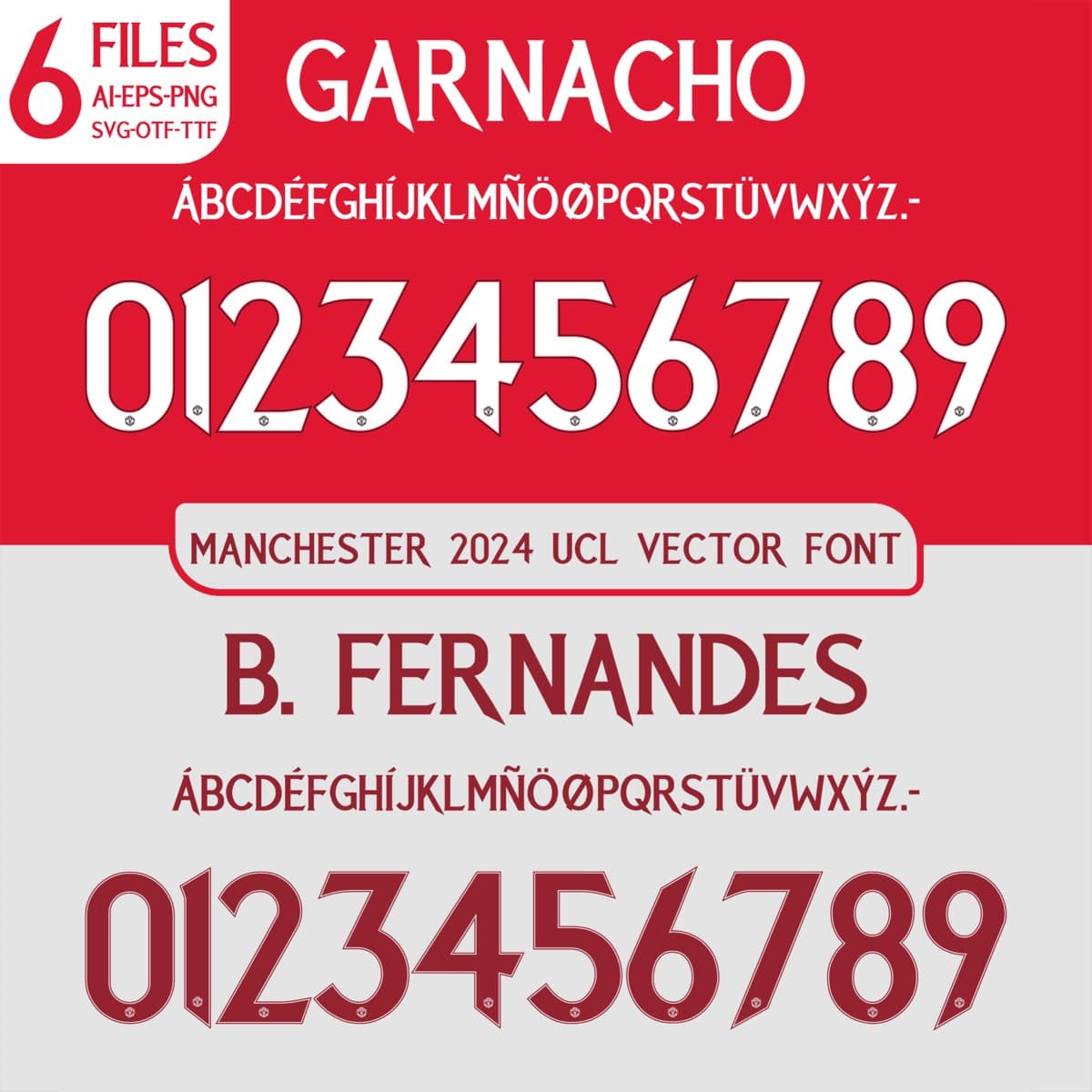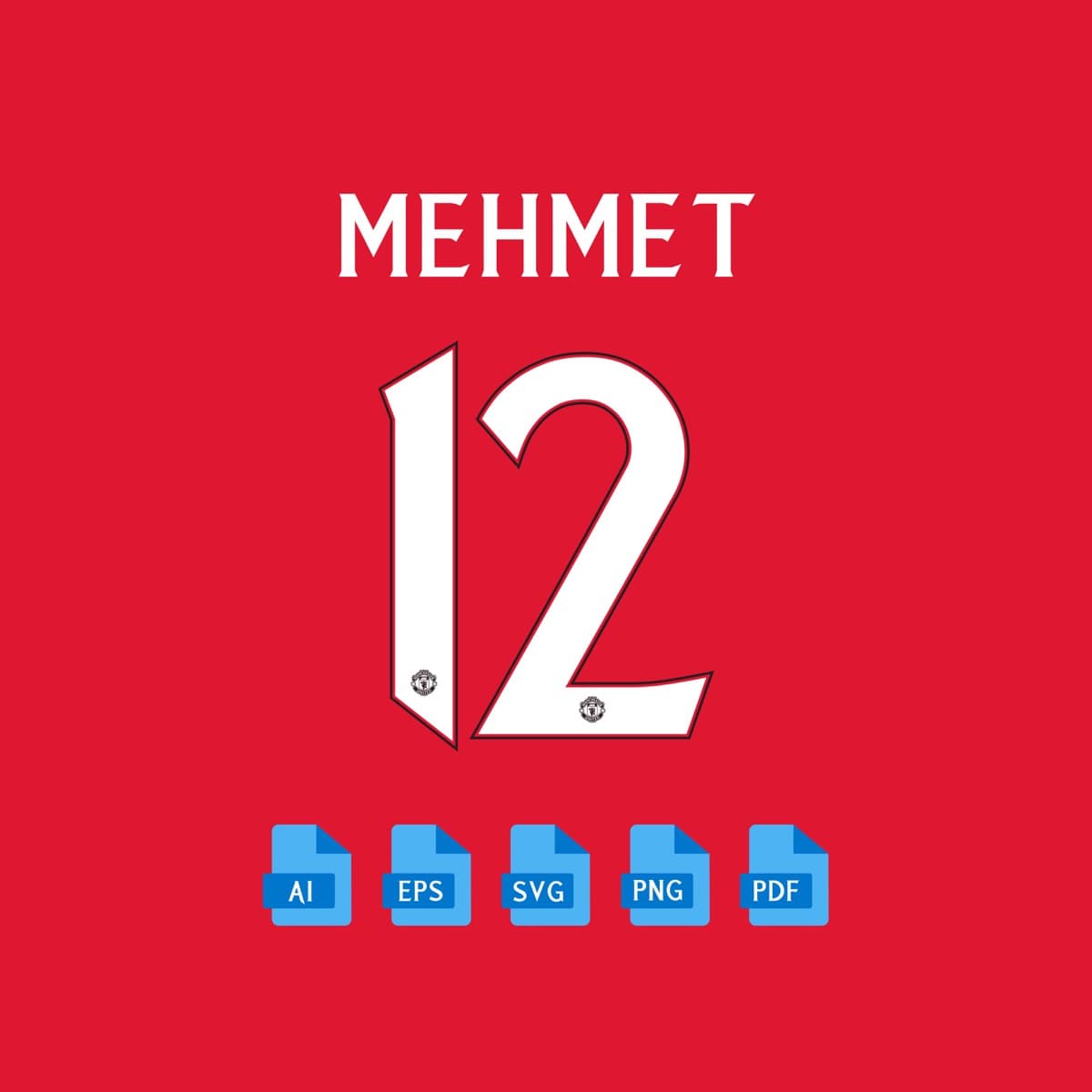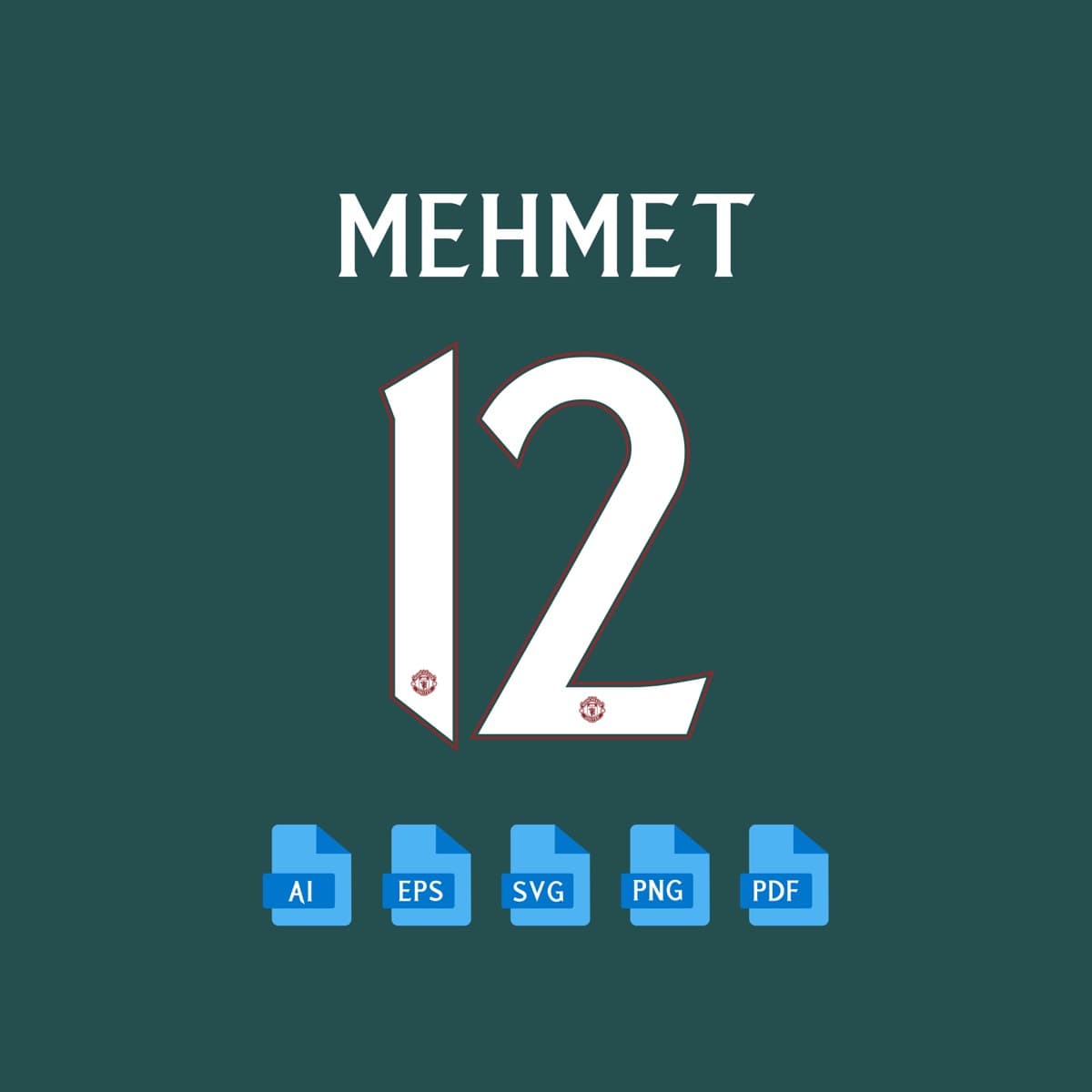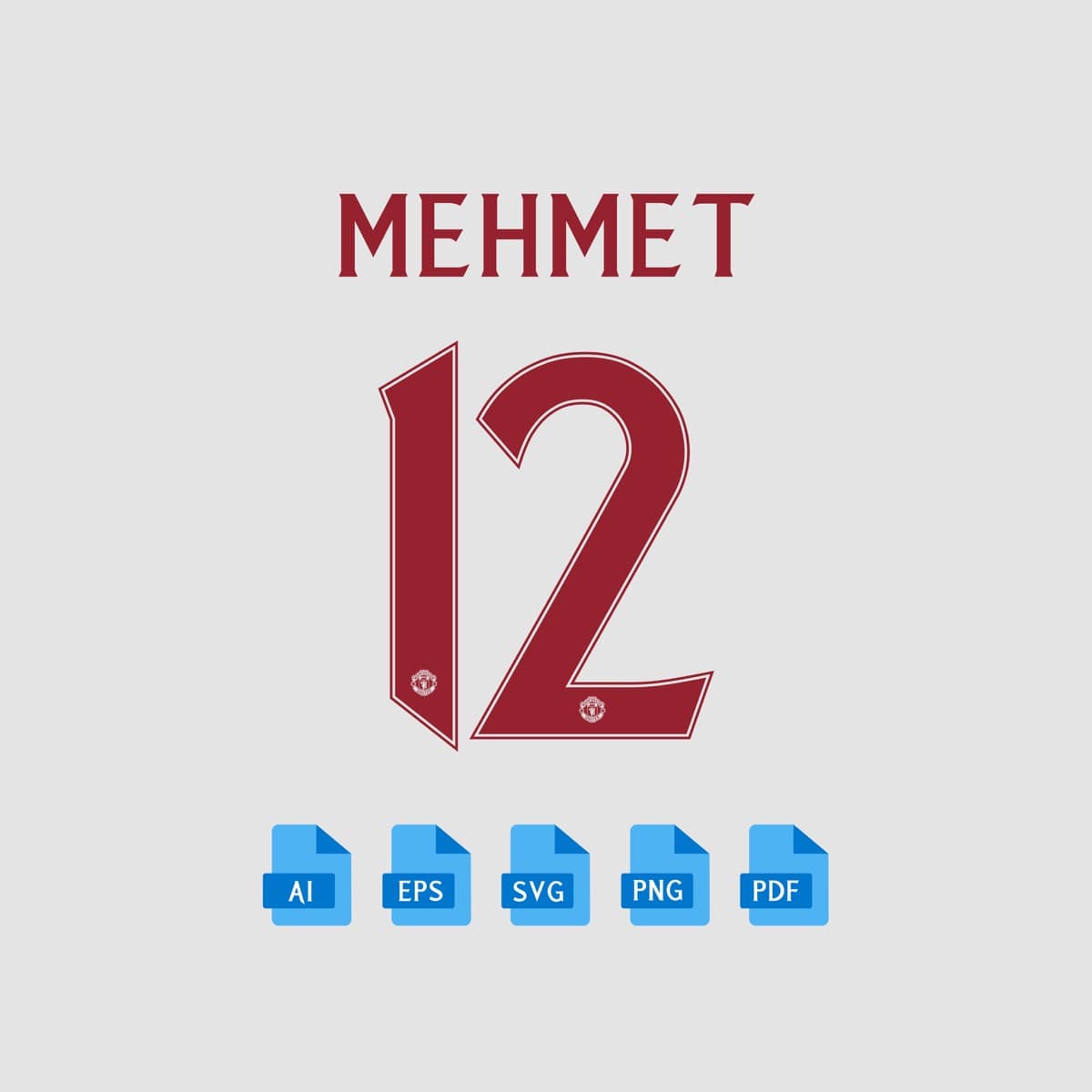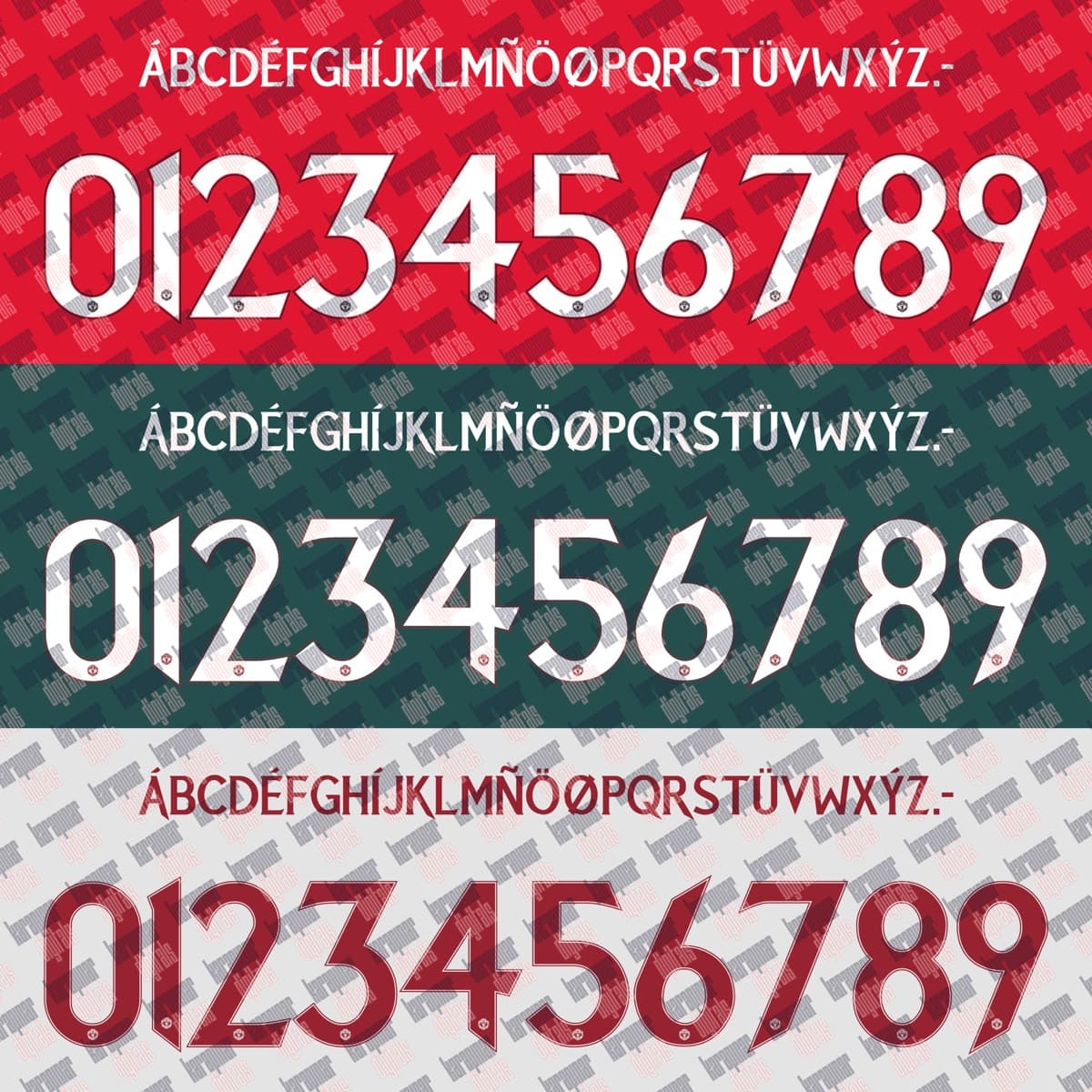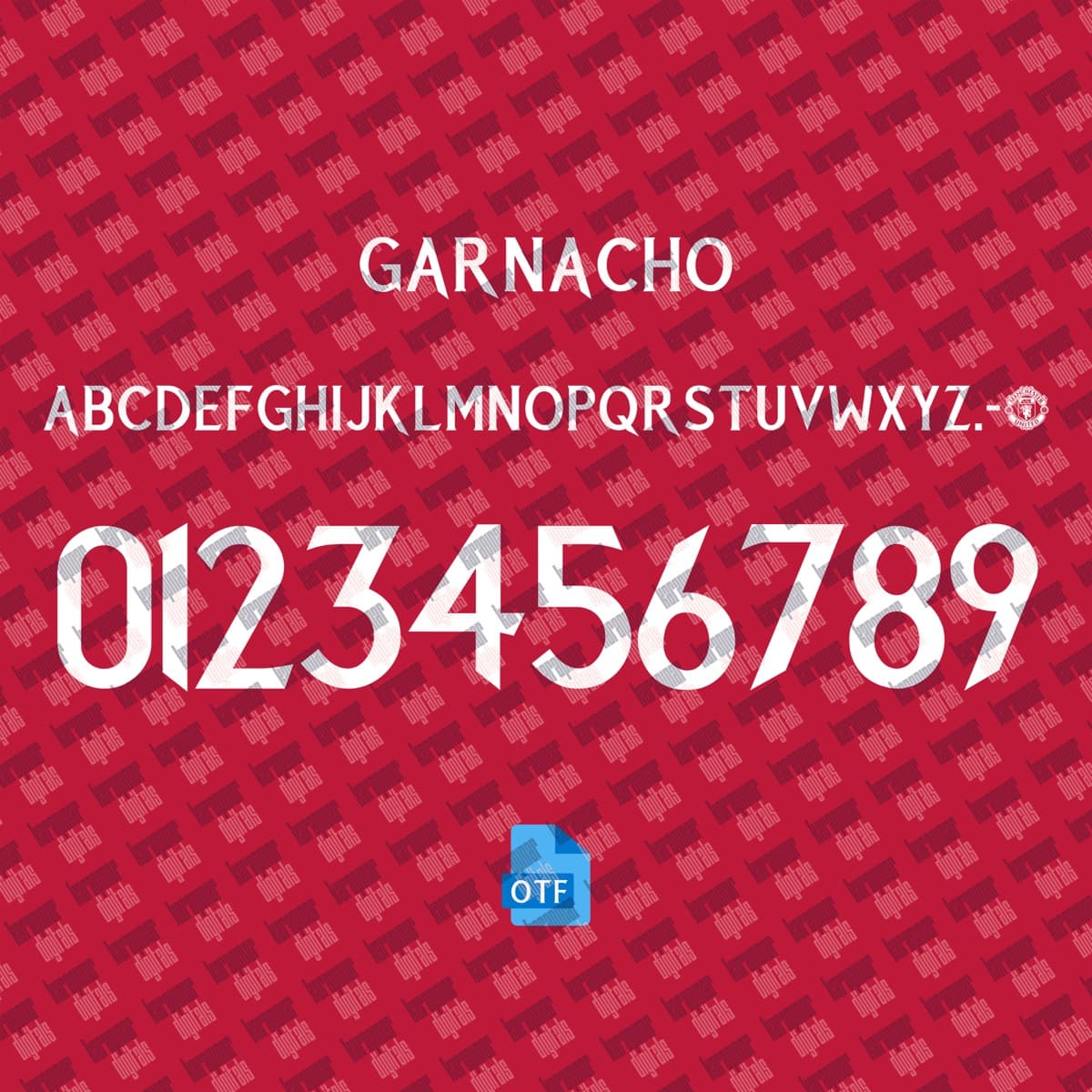
Manchester United 2024
Manchester United · 2024
Manchester United 2024
A set inspired by the Manchester United 2024 jersey typography, with a name and number system redrawn for print and screen. Original curves, consistent weight and a complete 0–9 numeral family.
Does it include lowercase?
Jersey sets focus on uppercase + numerals; the glyph map shows exactly what this set includes.